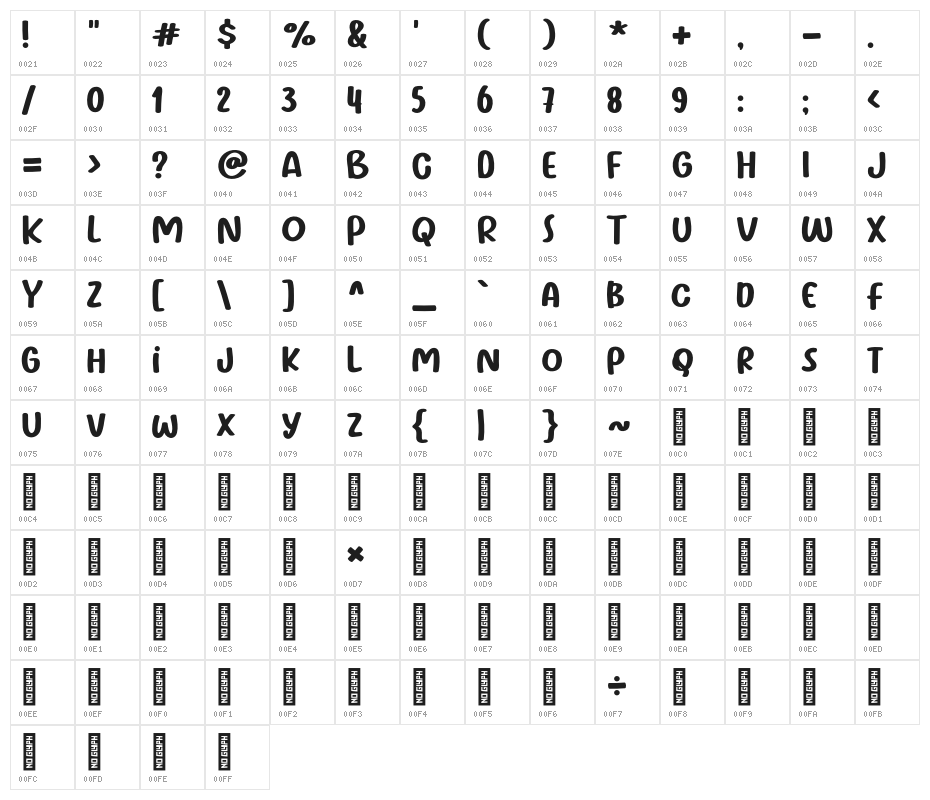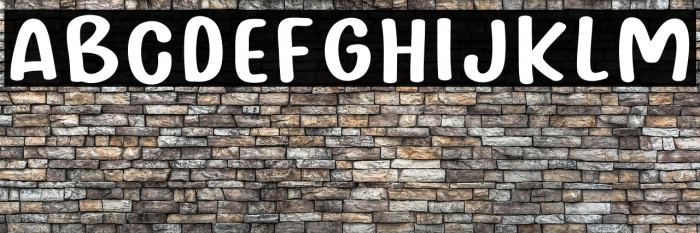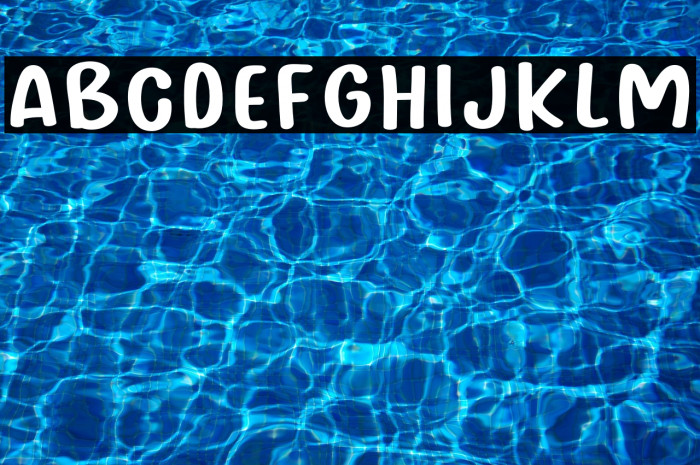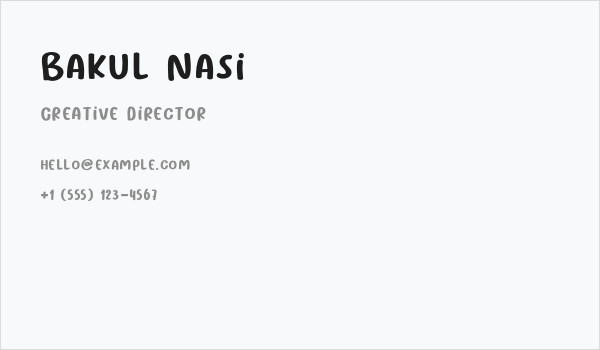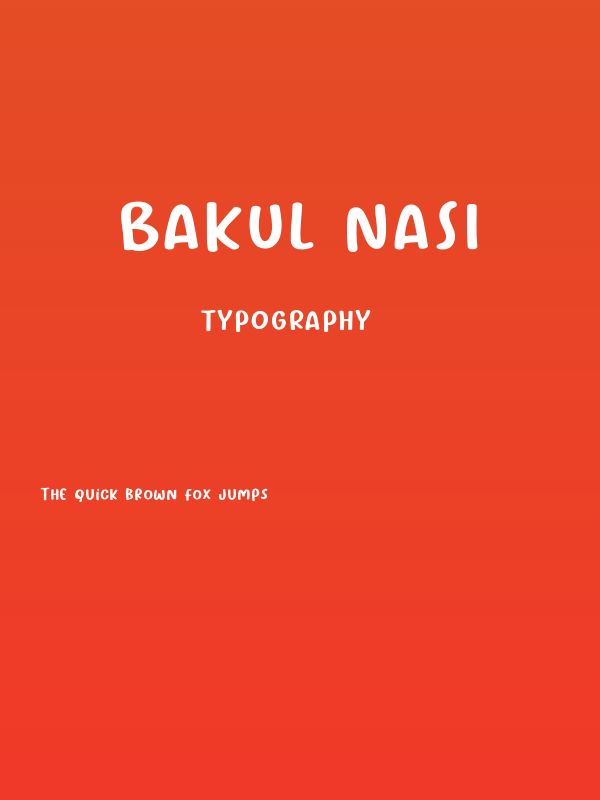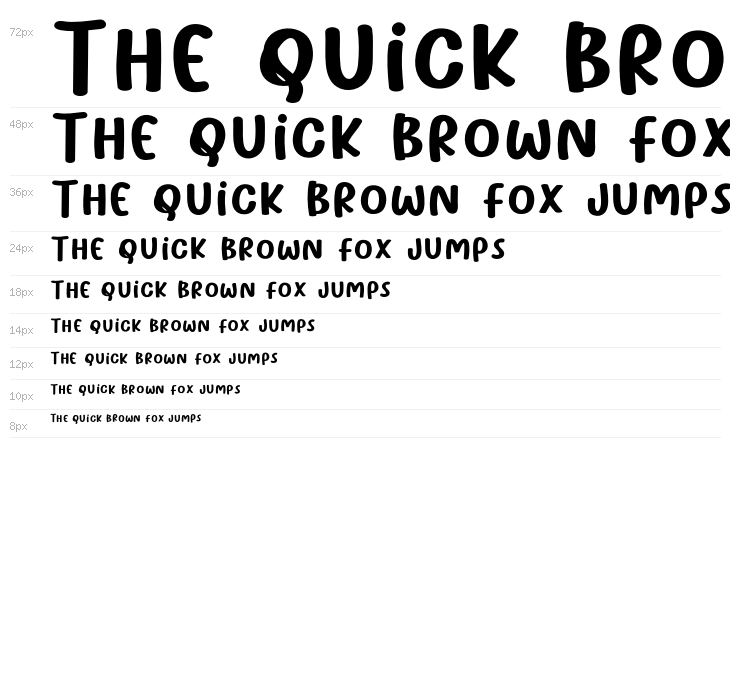
Bakul Nasi Font
Bakul Nasi Description
This playful and bold font features rounded, thick strokes that give it a friendly and approachable appearance. The letters are slightly irregular, adding a whimsical touch to the overall design. The uppercase and lowercase characters maintain a consistent style, with a slight slant that adds dynamism. The numbers are equally bold and rounded, ensuring readability and consistency across all characters. The special characters are designed to match the playful aesthetic, making this font suitable for a variety of creative projects.
BAKUL-NASI UPPERCASE
BAKUL-NASI LOWERCASE
BAKUL-NASI OTHER CHARS
| Proposed Projects | Ideal for children's books, playful branding, casual invitations, and creative posters. |